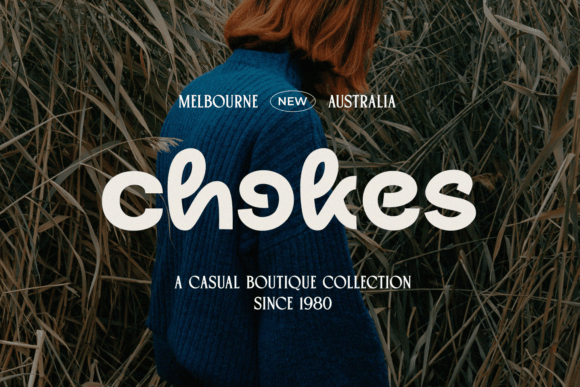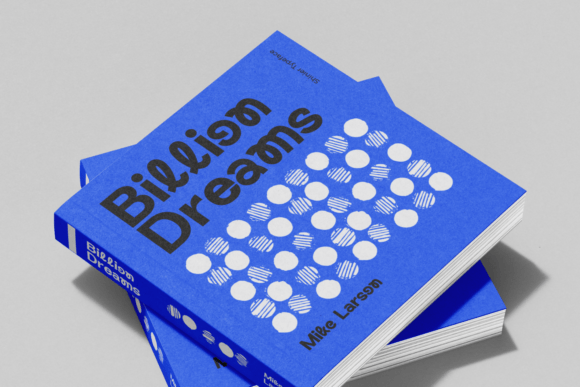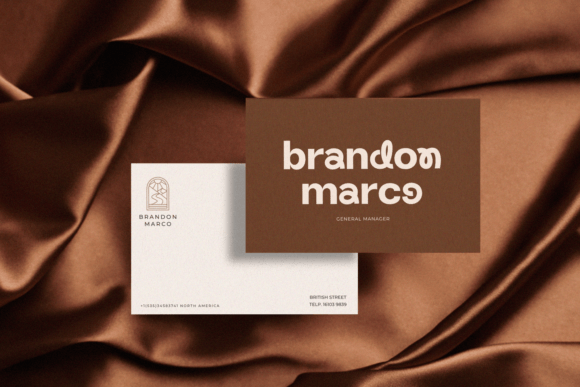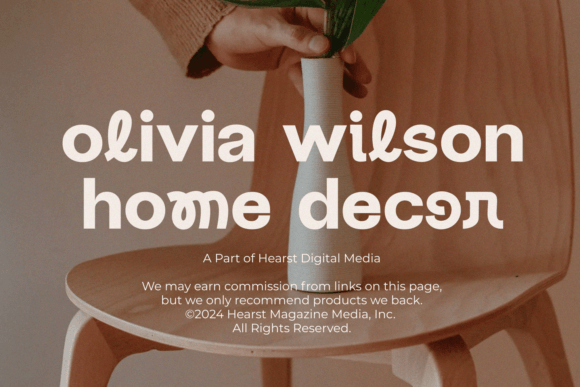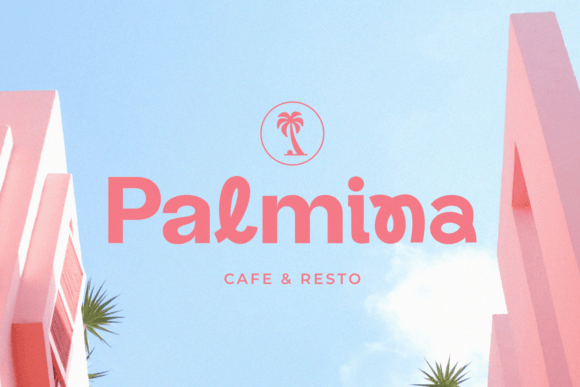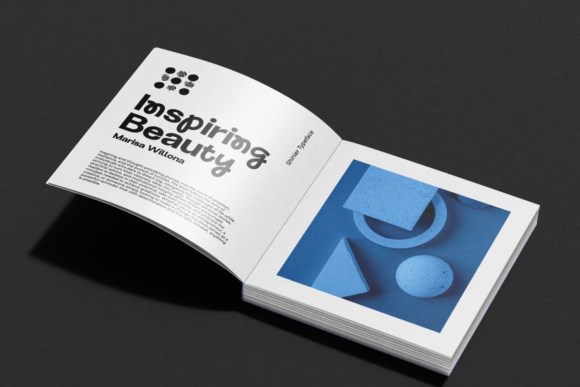
Introduction to Shinier Font
Shinier is an experimental sans serif font .
Its unique structure combines bold lines and unexpected curves, bringing a fresh perspective to modern typography Each character is meticulously crafted, resulting in a font that balances between clarity and creative exploration.
Key Features of Shinier Font